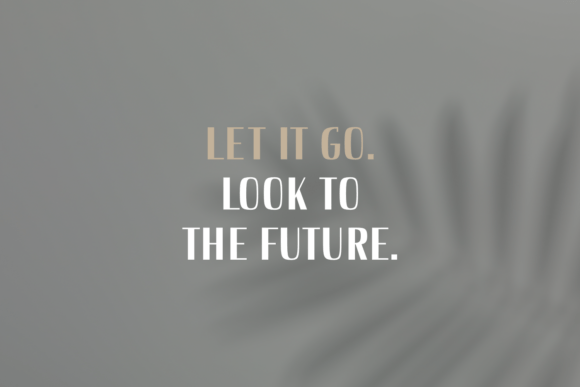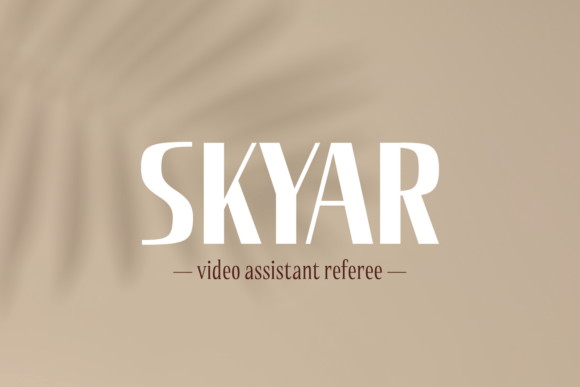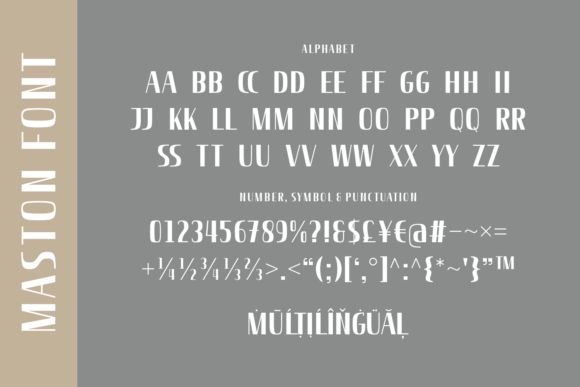
Introduction to Maston Font
Have you ever been working on a creative project, staring at a blank page, and suddenly, the perfect font pops into your mind? That’s exactly what happened to me when I discovered the Maston Font. Its bold, sans-serif style immediately caught my attention, and I knew I had to learn more.
As a designer, I can attest to the importance of having a reliable design resource like the Maston Font. With its clean, thick lines and modern look, it’s perfect for titles, logos, and other designs where you want words to stand out. Plus, with a transparent background, it’s easy to use on any background without worrying about the text getting lost. And the best part? It’s available for free download, making it an invaluable asset for any creative project.
Whether you’re a seasoned designer or just starting out, the Maston Font is a high-quality resource that’s sure to elevate your designs and take them to the next level.
Key Features of Maston Font
- High-quality design resource with a transparent background, ideal for creative projects that require a modern and sleek look.
- Includes a range of characters, including uppercase and lowercase letters, numbers, and punctuation marks, making it a versatile font for various creative projects.
- Features a clean and minimalist design, with a large x-height and open counters, making it highly legible and suitable for body text and headings.
Honest Review: Maston Font
One of the standout features of the Maston Font is its versatility. It comes in multiple styles and weights, making it perfect for a wide range of applications, from branding to editorial design. The high-quality design and transparent background also make it easy to integrate into any design project.
- Multiple styles and weights available
- High-quality design and transparent background
- Wide range of applications
- Limited customization options
- No extensive character set
Overall, I’m impressed with the Maston Font. While it may not be the perfect fit for every project, its unique style and high-quality design make it a valuable addition to any design resource library. With a bit of creativity, the Maston Font can help elevate any creative project.
Tips for Getting the Most Out of Maston Font
To get the most out of Maston Font, experiment with different font sizes, colors, and styles to create a unique design. Use a transparent background to give your text a clean and professional look. Consider combining Maston Font with other design resources, such as images and graphics, to create a visually appealing design.
Maston Font is suitable for a variety of creative projects, including logos, business cards, brochures, and social media graphics. Its high-quality design and transparent background make it an ideal choice for designers looking to create a professional and eye-catching design.